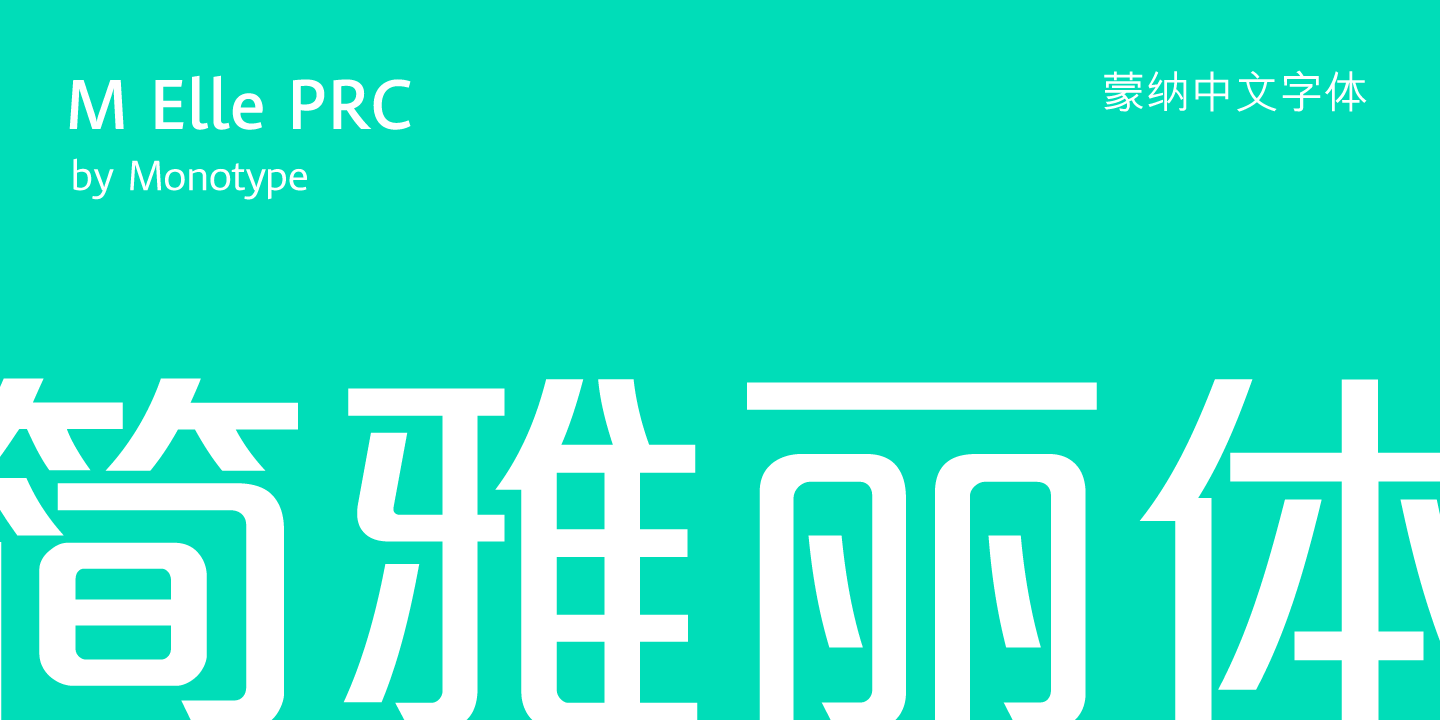
M Elle PRC Font is perfect for fashion magazine layouts, haute couture brand identities, luxury beauty product packaging, sophisticated editorial designs, elegant women's lifestyle materials, premium cosmetic communications, refined fashion show programs, stylish boutique signage, chic marketing campaigns, and elegantly sophisticated marketing communications.
M Elle PRC Font is exciting because it embodies the timeless elegance and editorial sophistication of high-fashion publishing with its gracefully refined letterforms that seem crafted for glossy magazine pages and carry the authoritative voice of style editors who define global fashion trends. Its editorially polished character design reflects both the meticulous attention to detail that creates iconic fashion imagery and the sophisticated confidence that makes certain publications the ultimate arbiters of style and elegance, making it perfect for brands seeking fashion authority and editorial prestige.
M Elle PRC Font family includes thin, light, regular, medium, bold, and black weights, each with corresponding italic versions. The font family also features fashion-inspired ornaments, editorial ligatures, style symbols, and sophisticated decorative elements that enhance its chic aesthetic and fashion industry versatility.
This editorially sophisticated typeface represents the perfect fusion of fashion authority and publishing excellence. M Elle PRC Font Free Download allows designers to experience its editorial appeal before making a commercial commitment. The font's ability to convey both fashion sophistication and publishing credibility makes it ideal for fashion magazines, luxury brands, and style-focused companies targeting discerning audiences seeking authentic fashion authority and editorial excellence.
Whether you're developing fashion publication identities, creating luxury brand materials, or designing style-focused communications, M Elle PRC Font brings an unmistakable sense of editorial sophistication and fashion authority to every project. Its polished character and fashion heritage create powerful connections that resonate with style-conscious audiences and industry professionals seeking authentic fashion credibility.
The font's versatility excels in fashion and publishing environments where editorial authority and sophisticated style are paramount. Its chic character makes it particularly effective for fashion magazines, luxury beauty brands, high-end boutiques, and style publications seeking to establish authoritative relationships with fashion-forward audiences and industry insiders who demand editorial excellence and style authenticity.
For designers working on projects requiring genuine fashion authority and editorial appeal, M Elle PRC Font provides an exceptional solution. Its editorially sophisticated presence and comprehensive fashion-themed elements offer the tools needed for creating truly stylish communications, while its publishing excellence ensures your designs capture the fashion authority and editorial sophistication that defines the most influential style publications and luxury fashion brands.